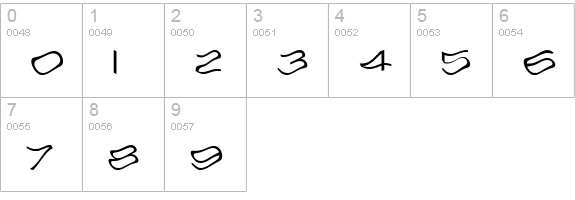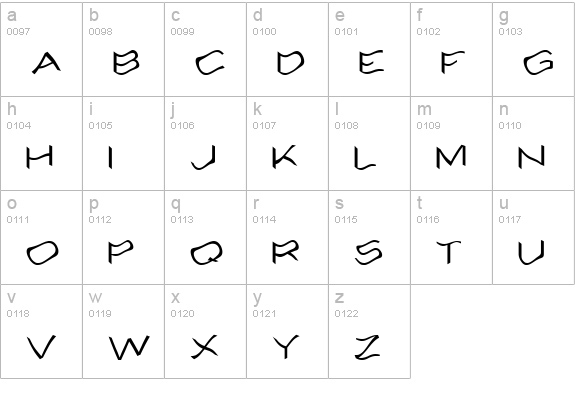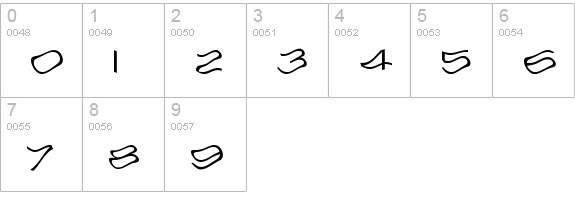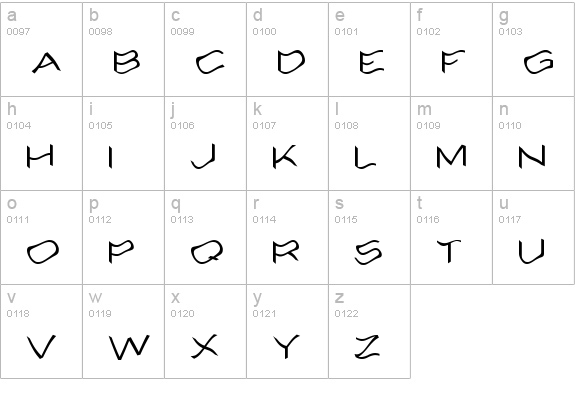
Alcohole Font Details
Alcohole font is a unique and stylish typeface that exudes a sense of sophistication and elegance. Its sleek design and modern aesthetic make it perfect for a wide range of projects, from branding and advertising to packaging and web design. With its clean lines and sharp edges, Alcohole font commands attention and adds a touch of class to any design. What sets Alcohole font apart is not only its stunning appearance but also the fact that it is completely free to download at FontsMarket.com. This means that you can elevate your projects with this premium font without breaking the bank. Whether you're working on a personal or commercial project, Alcohole font is a versatile and eye-catching choice that is sure to make a lasting impression.